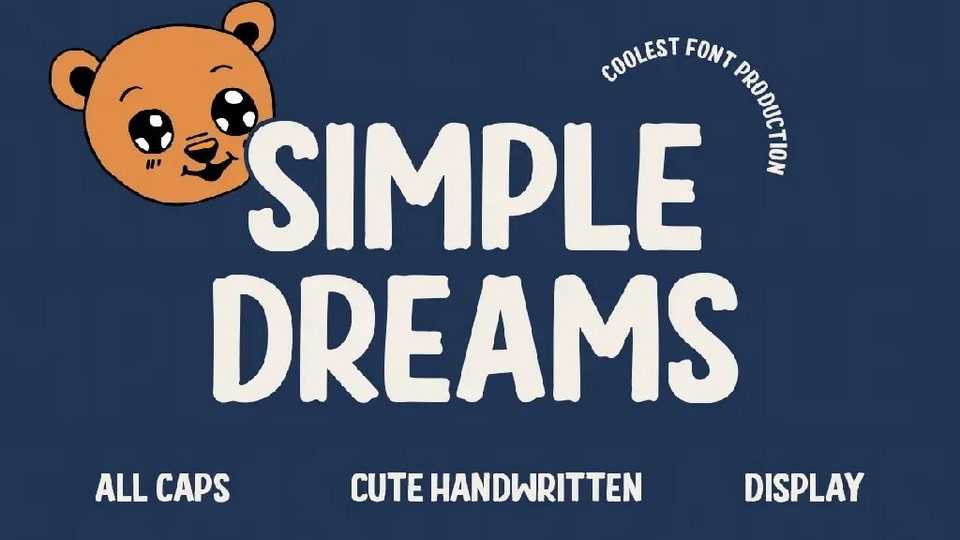
Download Simple Dreams font, a bold and playful handwritten display typeface that combines modern charm with a cute, handcrafted touch. This fancy font is perfect for creating standout designs that feel friendly and professional.